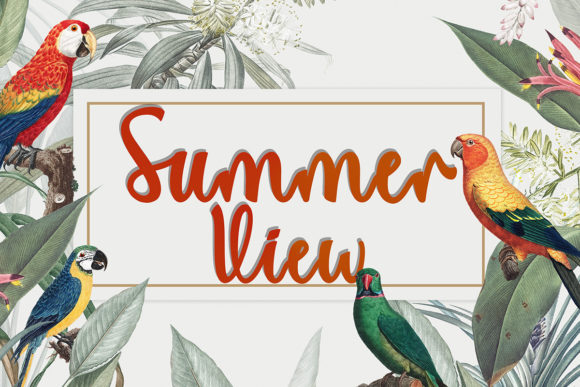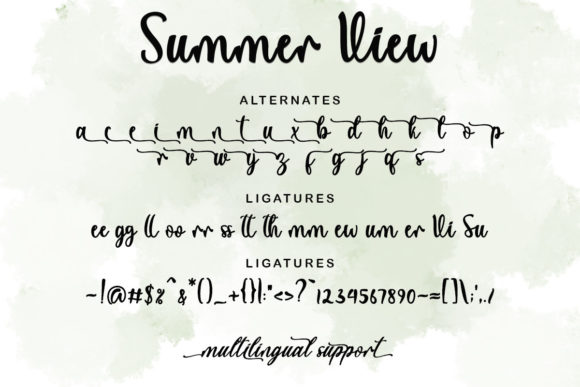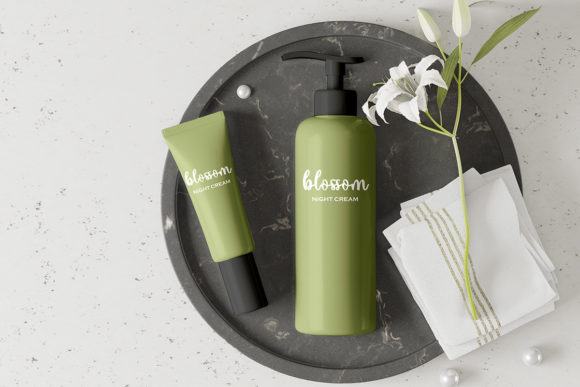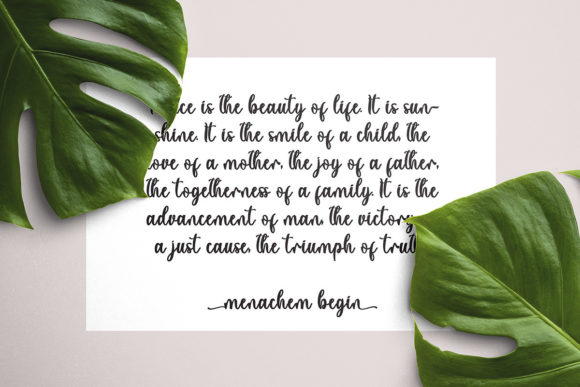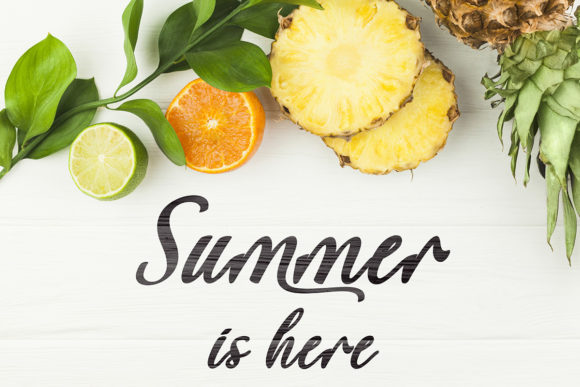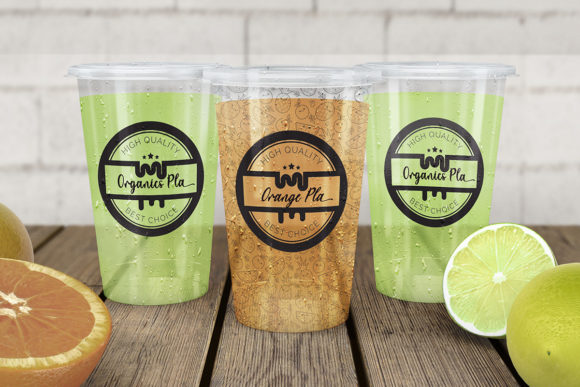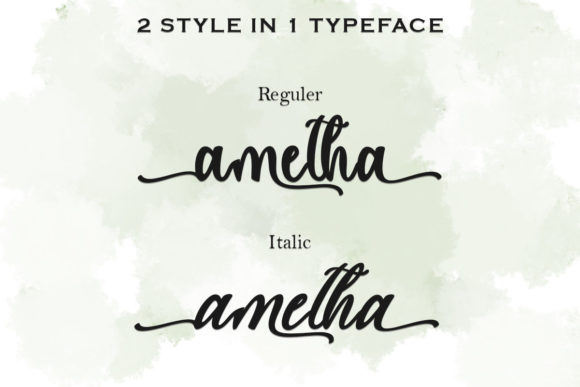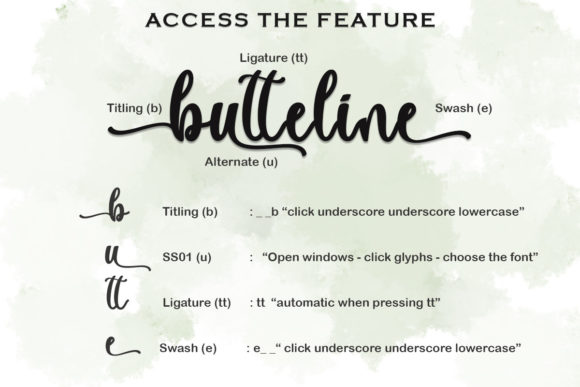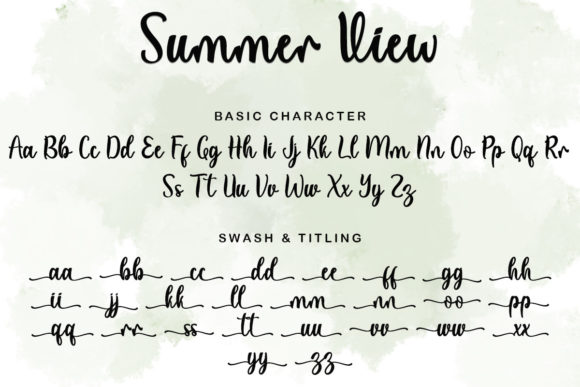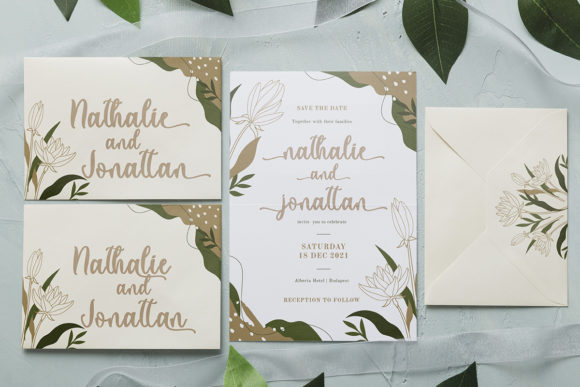
Summer View Font
About Summer View Font
Summer View is a chic and refined script font that exudes sophistication and elegance. With its sleek letterforms and stylish alternates, this font adds a touch of class to any design project. It is meticulously crafted to offer a seamless and visually appealing look, making it the perfect choice for various creative endeavors.
The stylish alternates and ligatures of Summer View allow you to create unique and captivating typography. They provide you with additional design options, enabling you to add an extra level of creativity and personalization to your projects. Whether you’re working on branding materials, wedding invitations, social media graphics, or any other design that requires a touch of elegance, Summer View is a versatile and reliable font that will effortlessly enhance your work.
This font’s PUA (Private Use Area) encoding ensures easy access to all the glyphs and swashes it offers. With a wide range of available characters, you can effortlessly mix and match them to create beautiful and eye-catching compositions. Whether you’re looking to embellish your designs with ornamental swashes or add unique ligatures to enhance the flow of your text, Summer View provides you with the tools to do so with ease.
The refined and sleek nature of Summer View makes it a suitable choice for a variety of projects. Its timeless elegance works well in both digital and print media, allowing you to create stunning designs for branding, packaging, headlines, invitations, and more. The font’s versatility ensures that it complements different design styles, whether you’re aiming for a modern and minimalistic look or a more elaborate and decorative aesthetic.
Incorporating Summer View into your designs adds a touch of sophistication and class. Its refined letterforms and stylish alternates make it a font that stands out and captures attention. With its PUA encoding, you have the freedom to explore and utilize all the glyphs and swashes, unleashing your creativity and creating visually stunning compositions.
Experience the chic and refined elegance of Summer View and elevate your design projects to new heights. Let its stylish alternates and ligatures be the perfect match for your creative ideas, enhancing the overall aesthetic and leaving a lasting impression on your audience.